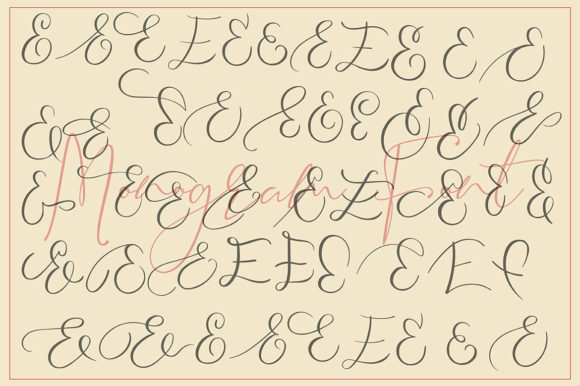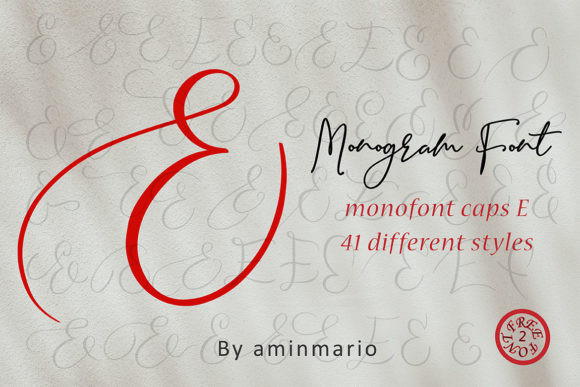
Monogram E | Monofont Caps E Font
About Monogram E | Monofont Caps E Font
This MONOGRAM is natural handwriting of capital E with 36 different styles.
This is not for writing words or sentences, but for monograms. Bonus 2 Font that contains the uppercase and lowercase to support it.